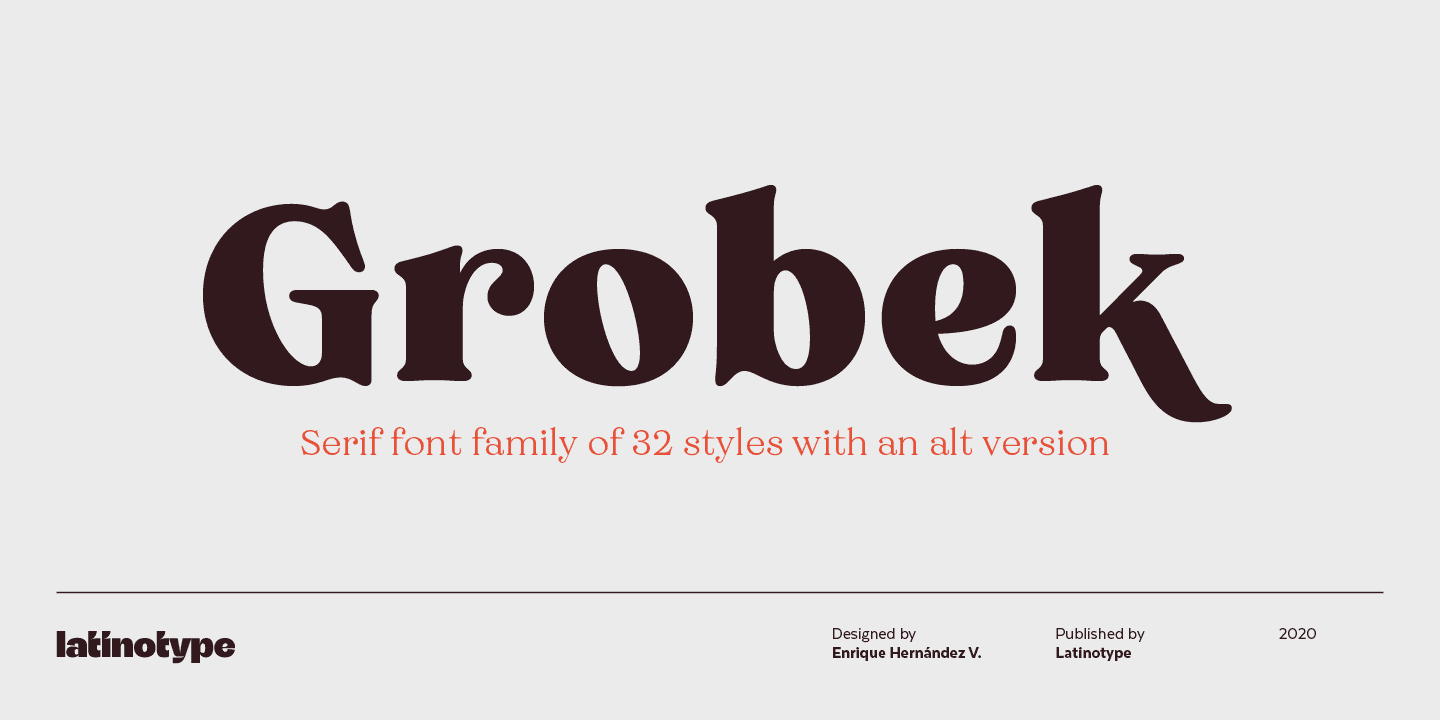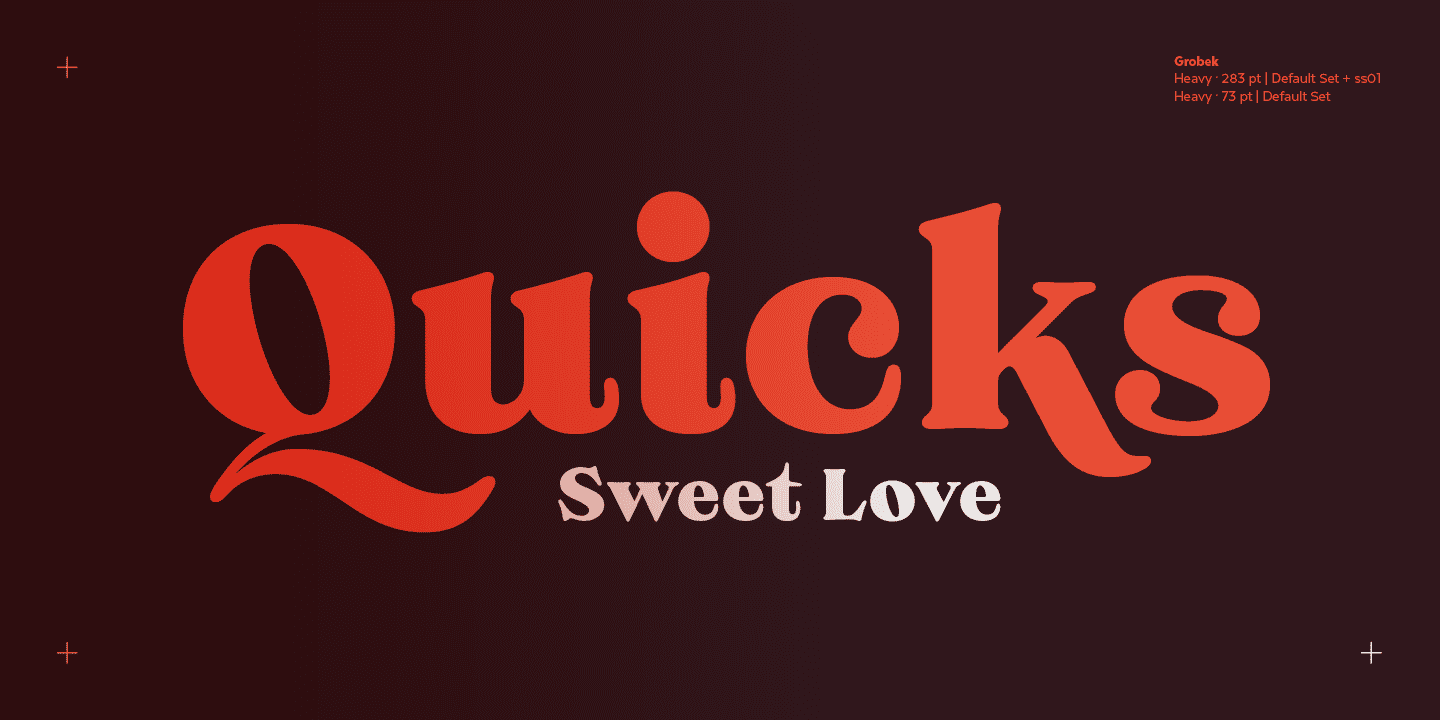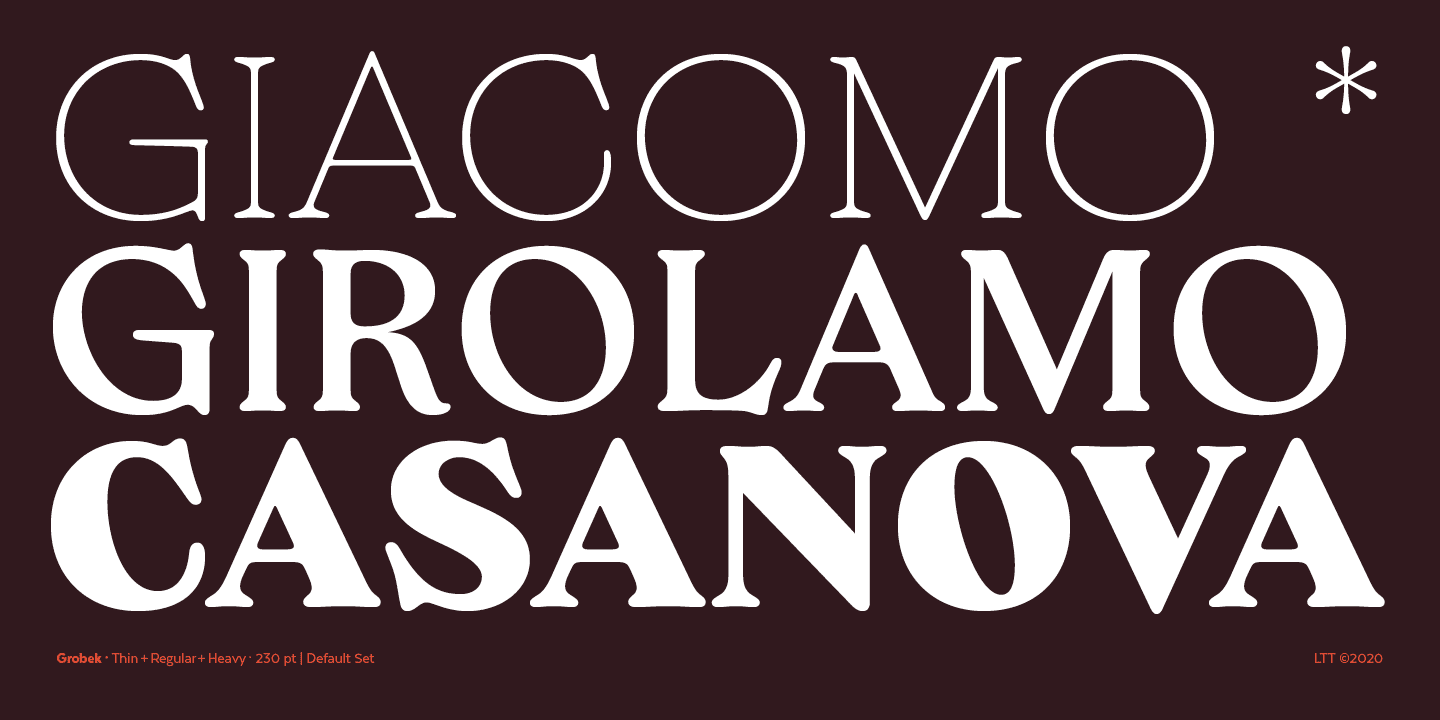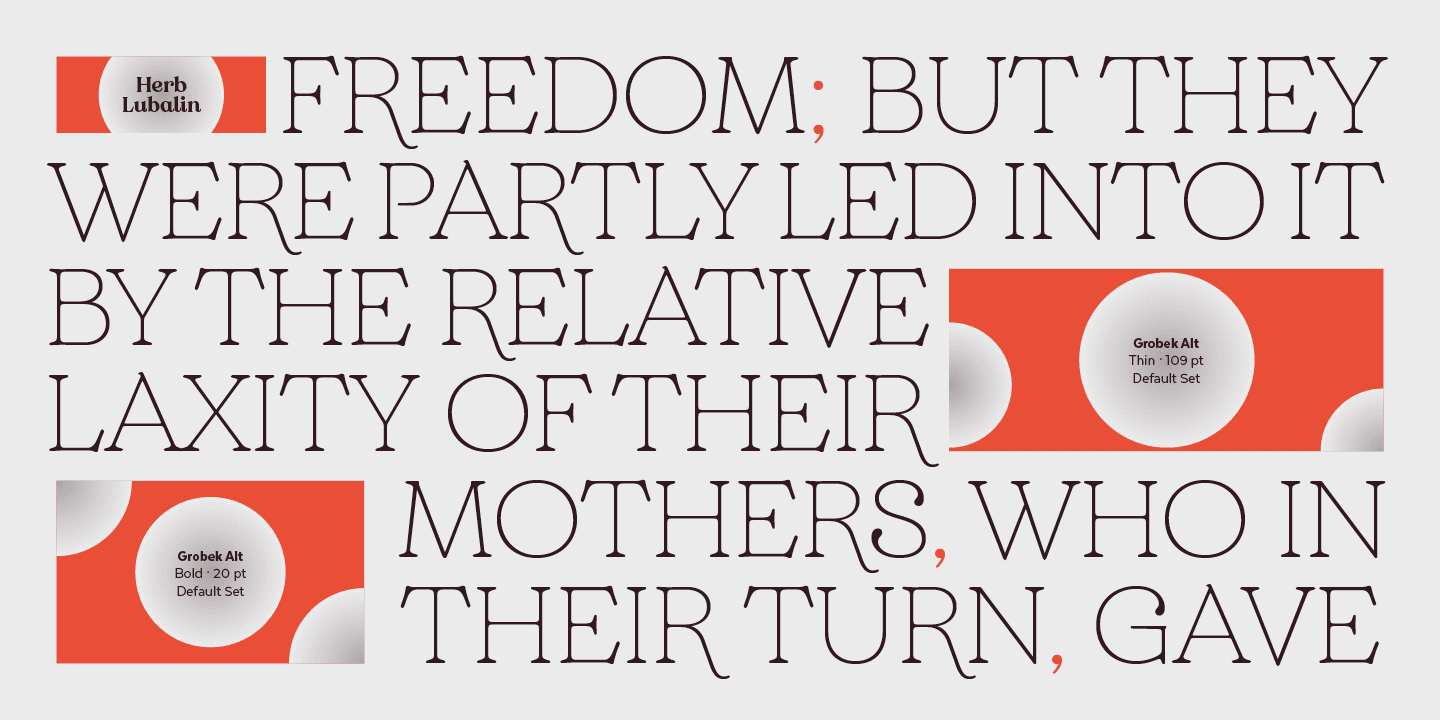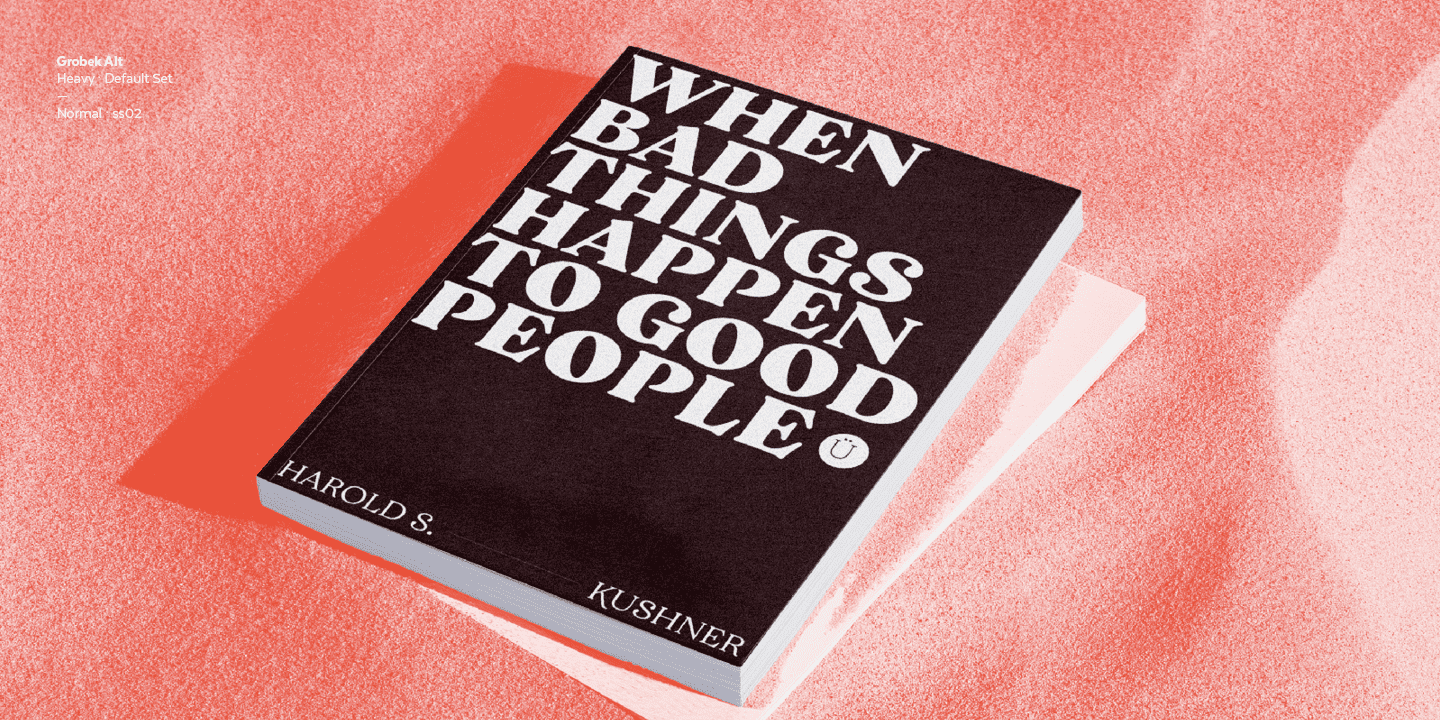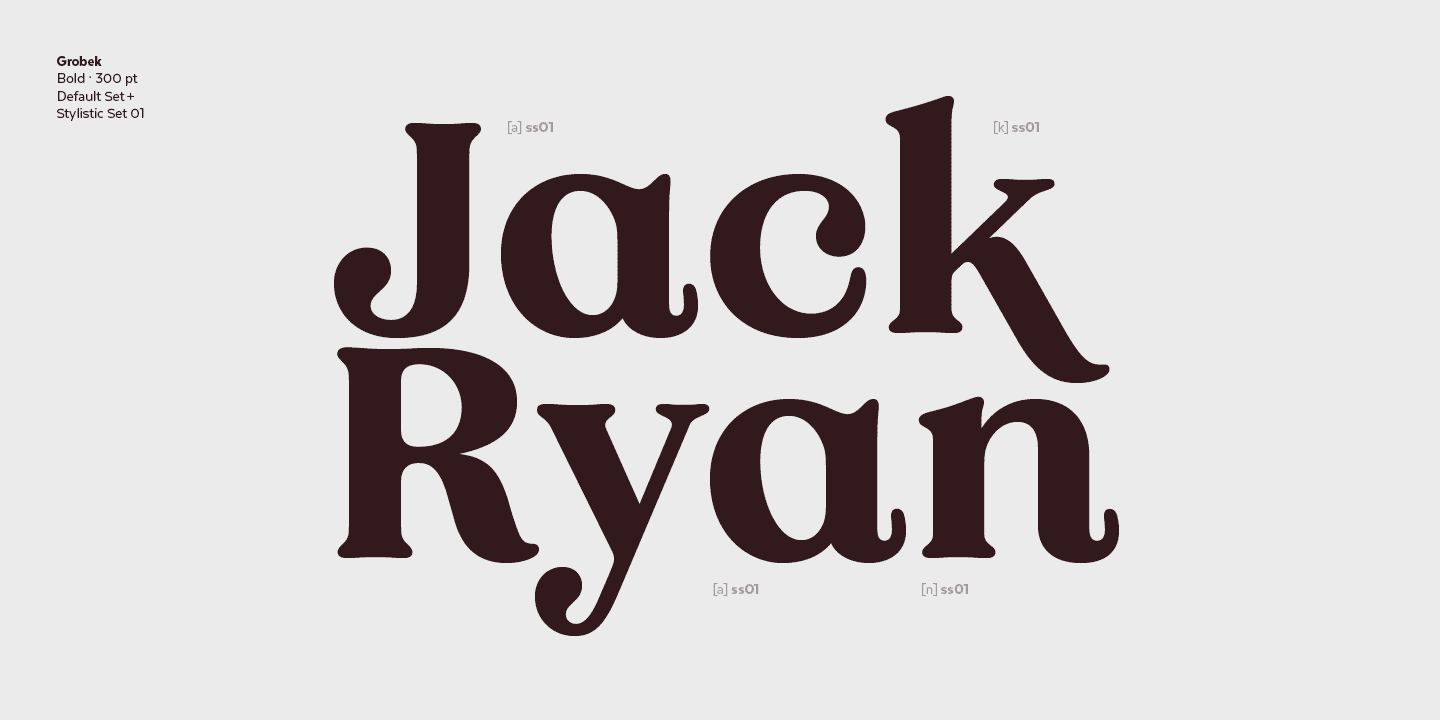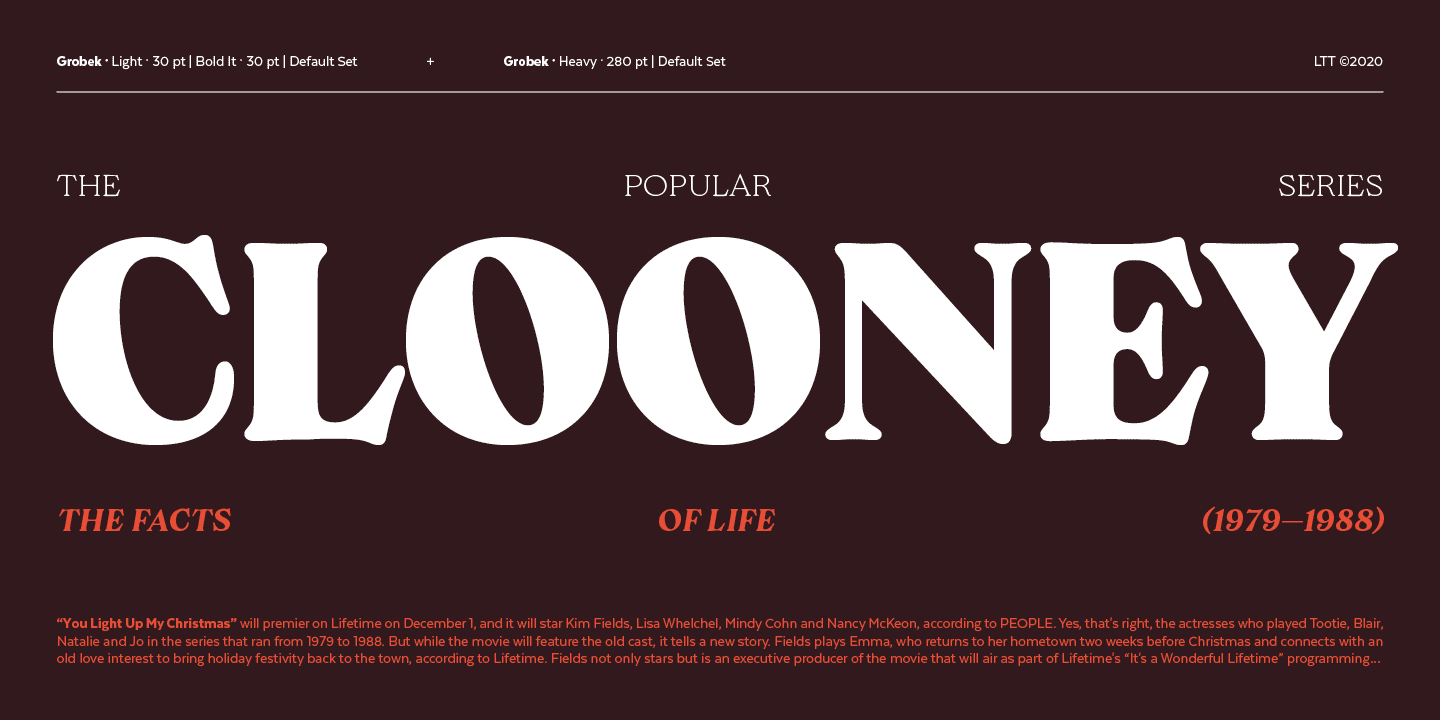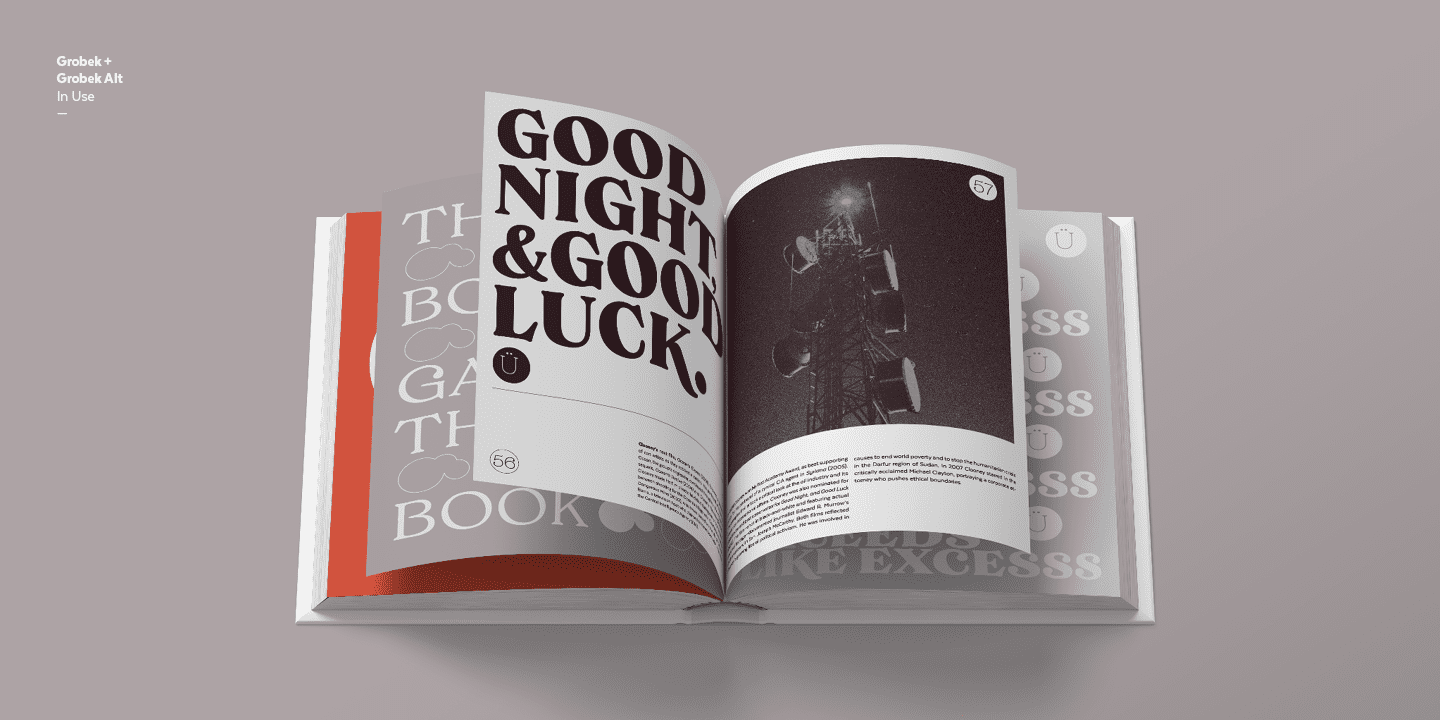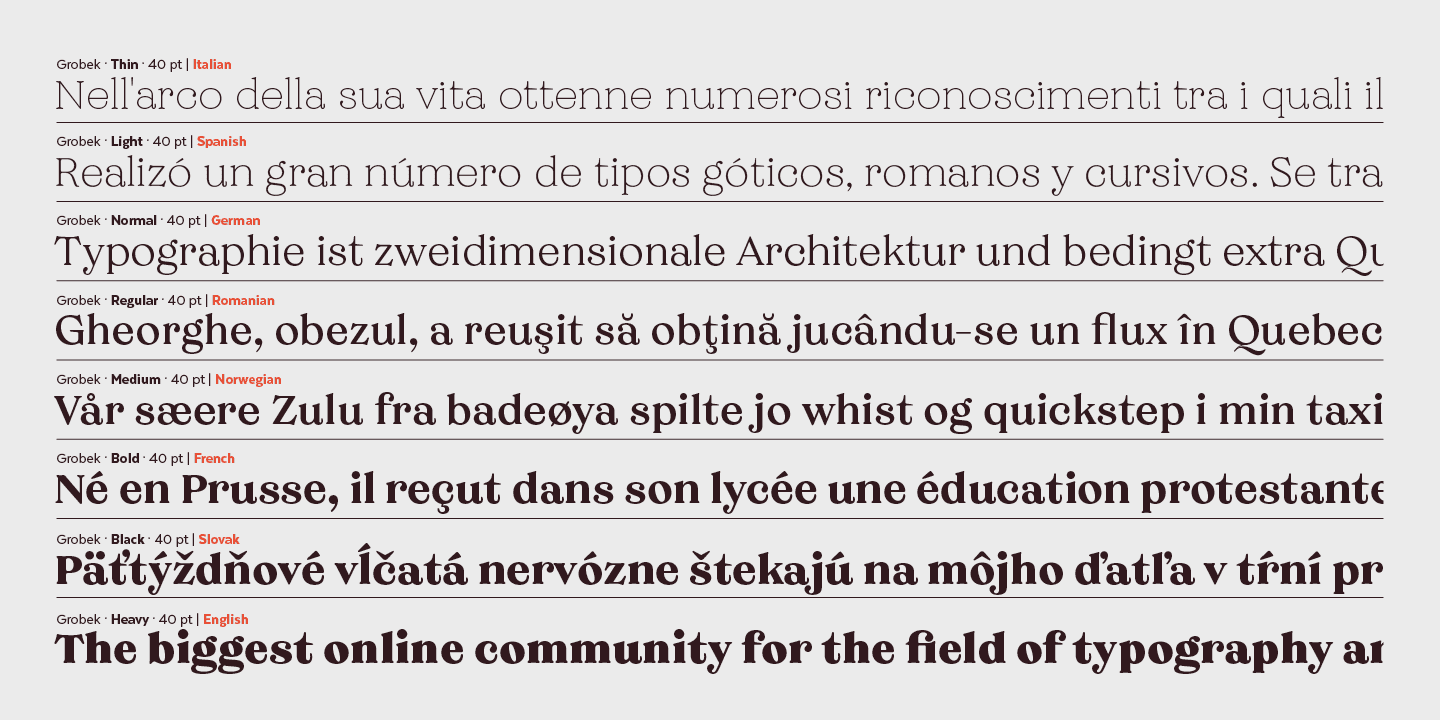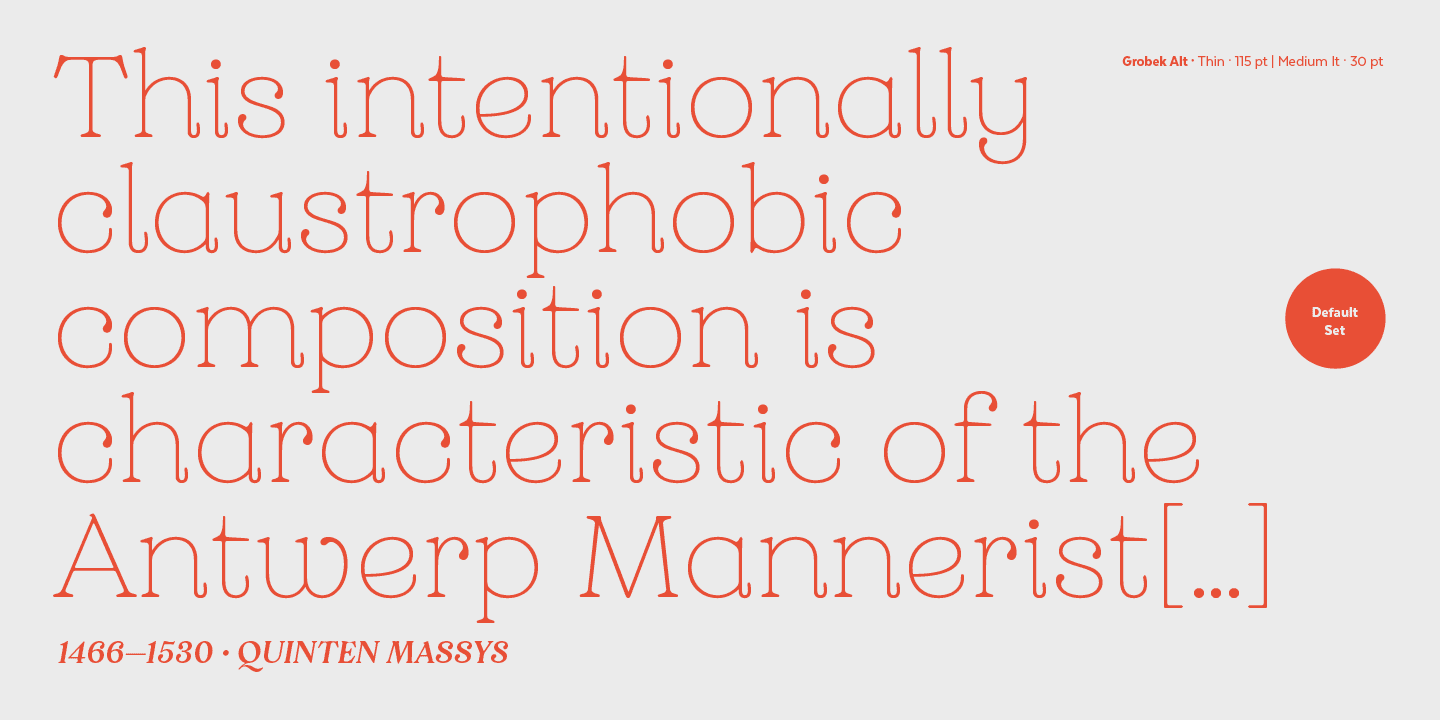
Grobek Complete Family (32 fonts)
Grobek comes in 8 weights, from Thin to Heavy, with matching italics- 32 styles in all. The font consists of 2 subfamilies: the basic family is classic yet contemporary while the alternative version has a stronger personality and allows more design freedom.
Grobek is ideal for short text and paragraphs, and specially designed for logos, branding, editorial design and web use. This font contains 576 characters that support over 200 Latin-based languages.